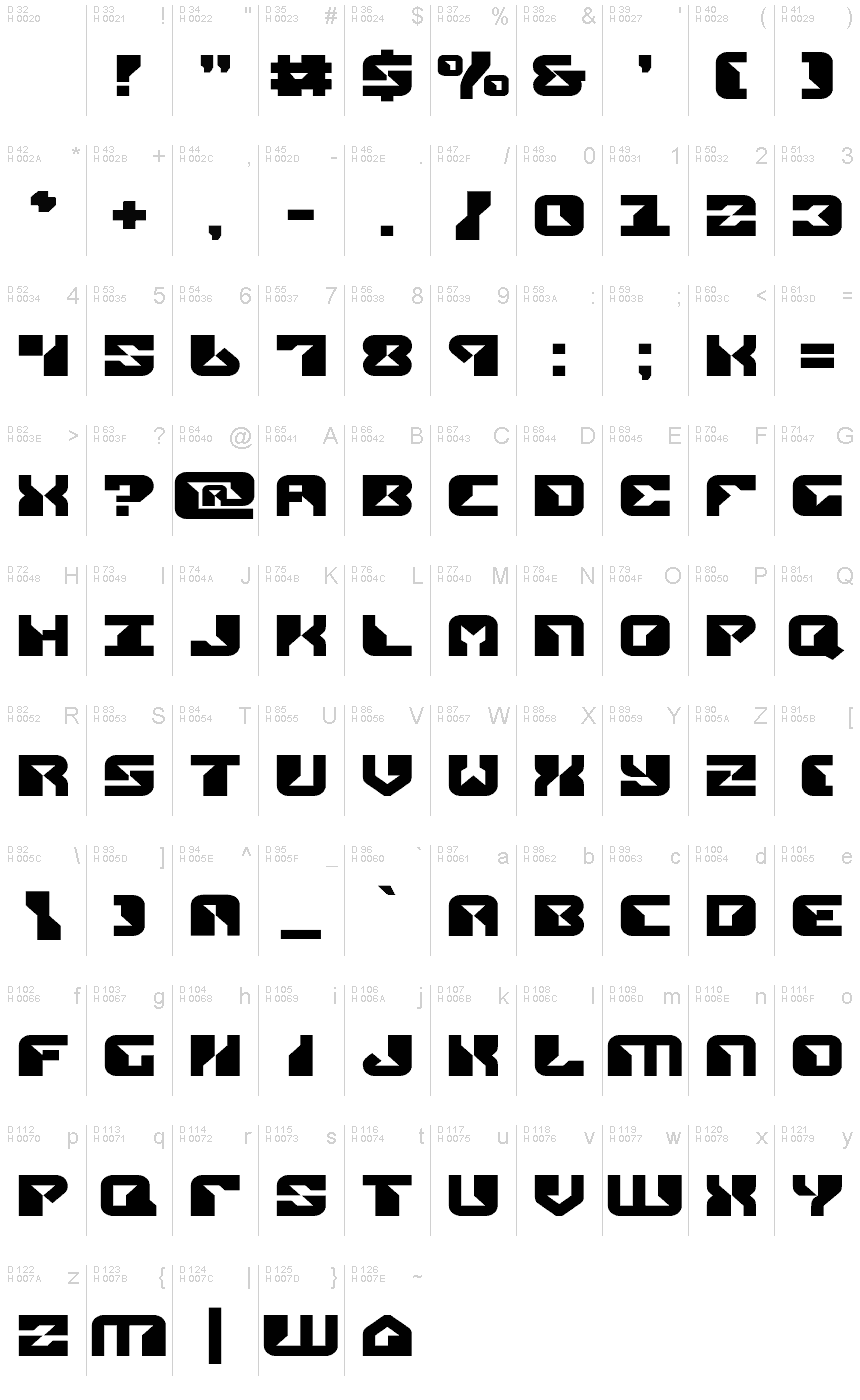
Replicant Expanded
Replicant Expanded by Iconian Fonts is a free techno display font with a hard sci-fi attitude. The caps are built from heavy geometric blocks, then sliced with sharp diagonal notches and wedge-like corners that make the alphabet feel fast, robotic, and slightly militarized.
It fits game logos, movie poster titles, esports branding, album covers, and UI-style headline graphics where a free font with this much machine-edge character can carry the whole mood. Because the letters are so compact and sculpted, it also works well for short title cards, monograms, and bold cover lines that need a futuristic stamp rather than a neutral voice.